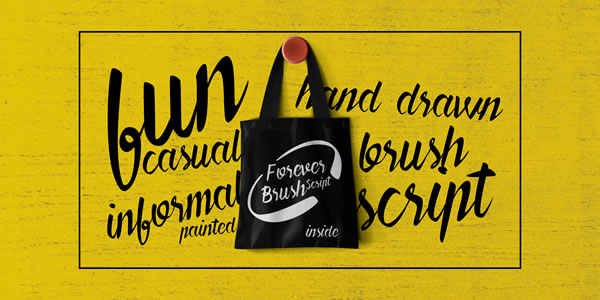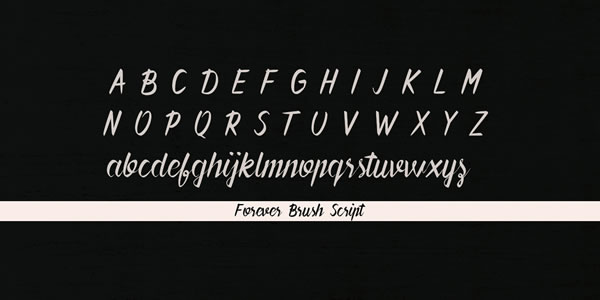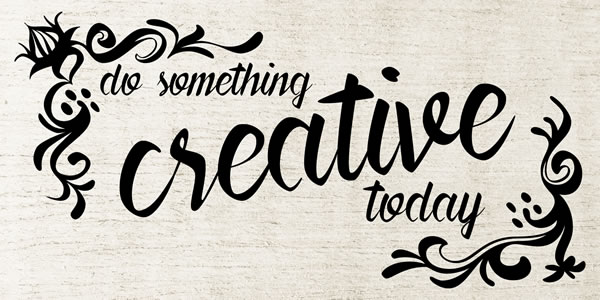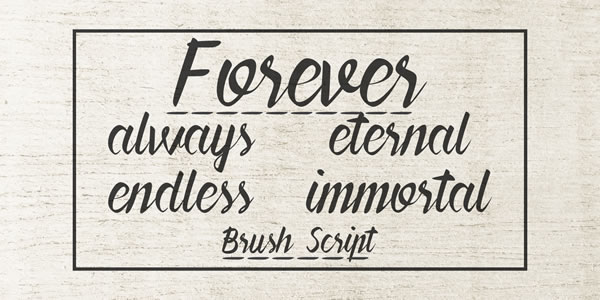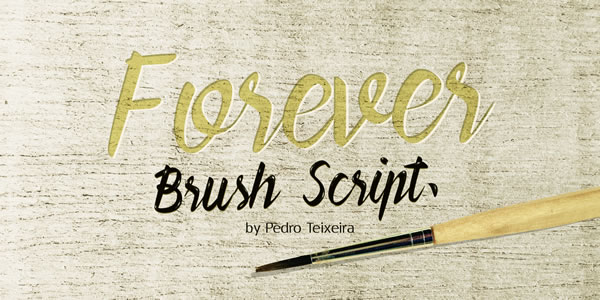
Introducing Forever Brush Script Font: A Stunning Handwritten Brush Font
Are you a designer or crafter looking for a unique and eye-catching font to elevate your creative projects? Look no further than Forever Brush Script Font, a beautiful handwritten brush font created by Pedro Teixeira. With its natural, fluid strokes and elegant lettering, this font is perfect for adding a personal touch to your designs, crafts, and digital projects.
What is Forever Brush Script Font?
Forever Brush Script Font is a carefully crafted handwritten brush font that mimics the look and feel of traditional brush lettering. Designed by Pedro Teixeira, a talented typographer and font creator, this font features beautiful, flowing strokes that give it a natural and organic feel. With its unique blend of elegance and playfulness, Forever Brush Script Font is ideal for a wide range of creative applications, from digital art and craft projects to branding and marketing materials.
Key Features of Forever Brush Script Font
• Handwritten brush script: Forever Brush Script Font is a true handwritten brush font, with each letter carefully crafted to resemble the natural strokes of a brush.
• Elegant and fluid: The font features elegant, flowing strokes that give it a sophisticated and refined look.
• Natural and organic: With its natural, hand-crafted feel, Forever Brush Script Font adds a personal touch to any design or project.
• High-quality design: Created by Pedro Teixeira, a skilled typographer and font designer, Forever Brush Script Font is a high-quality font that is both visually appealing and technically sound.
Uses for Forever Brush Script Font
Forever Brush Script Font is a versatile font that can be used in a wide range of creative applications, including:
• Digital art and illustration: Add a personal touch to your digital art and illustrations with Forever Brush Script Font.
• Craft projects: Use Forever Brush Script Font to add a elegant and sophisticated touch to your craft projects, such as handmade cards, scrapbooking, and journaling.
• Branding and marketing: Forever Brush Script Font is perfect for creating eye-catching branding and marketing materials, such as logos, business cards, and social media graphics.
• Web design: Use Forever Brush Script Font to add a touch of elegance and sophistication to your website or blog.
Why Choose Forever Brush Script Font?
With so many fonts to choose from, why should you choose Forever Brush Script Font? Here are just a few reasons:
• Unique and eye-catching: Forever Brush Script Font is a truly unique and eye-catching font that will help your designs and projects stand out from the crowd.
• High-quality design: Created by a skilled typographer and font designer, Forever Brush Script Font is a high-quality font that is both visually appealing and technically sound.
• Elegant and sophisticated: Forever Brush Script Font adds a touch of elegance and sophistication to any design or project.
• Versatile: Forever Brush Script Font can be used in a wide range of creative applications, from digital art and craft projects to branding and marketing materials.
Font Name Forever Brush Script Font
Author Pedro Alexandre Teixeira